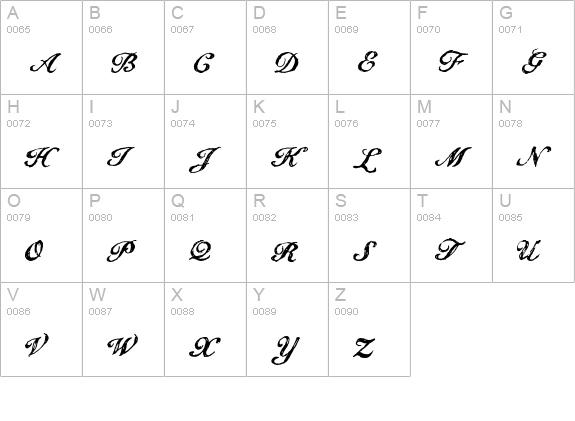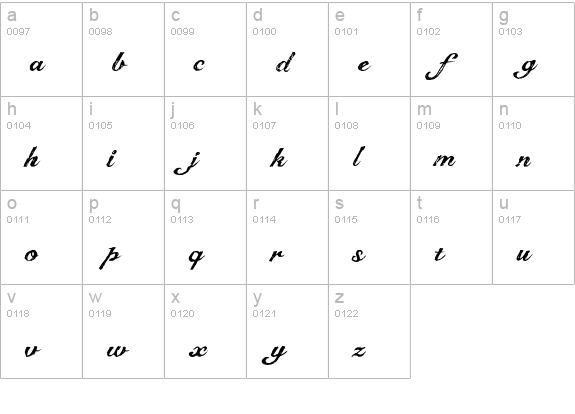
The Dreamer Font Details
Introducing The Dreamer font, a captivating typeface that effortlessly blends elegance with an ethereal touch. Designed for those who dare to dream, this font captures the essence of imagination and creativity in every curve and stroke. With its delicate yet bold letterforms, The Dreamer font adds a touch of whimsy to any design project. Whether you're working on a logo design, branding materials, or even a personal creative venture, this font will elevate your work to new heights. One of the most incredible aspects of The Dreamer font is that it is free. Yes, you heard that right. This stunning typeface is freely available to download at FontsMarket.com, allowing designers and creatives from all walks of life to access and utilize its enchanting charm. The Dreamer font is a versatile choice, suitable for various design styles, from romantic and vintage-inspired pieces to modern and contemporary aesthetics. Its flowing lines and intricate details make it an excellent choice for invitations, posters, book covers, and more. Crafted with meticulous attention to detail, The Dreamer font offers a wide range of glyphs and ligatures, allowing you to create truly unique and visually stunning compositions. Its readability and legibility ensure that your message comes across effortlessly, while its distinctive character adds an element of intrigue and personality. So, if you're ready to embark on a creative journey and infuse your designs with a touch of magic, look no further than The Dreamer font. Download it for free at FontsMarket.com and let your imagination run wild. Embrace the dreamer within and watch as your designs come alive with this captivating typeface.